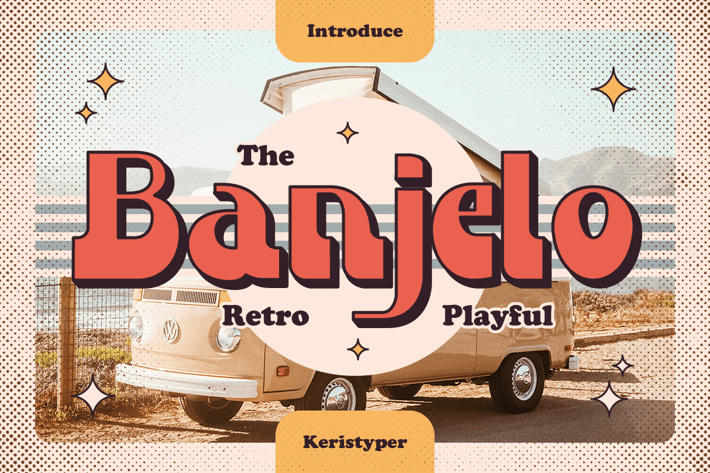
Banjelo Font
Banjelo is inspired by the 90's vibes, making it feel retro, vintage, and classy. This font is good for logo design, Social media, Movie Titles, Books Titles, short text even long text letters, and good for your secondary text font with script, sans, or serif.
Standard Uppercase & Lowercase
Multilingual : ä ö ü Ä Ö Ü ß ¿ ¡
Alternate & Ligature